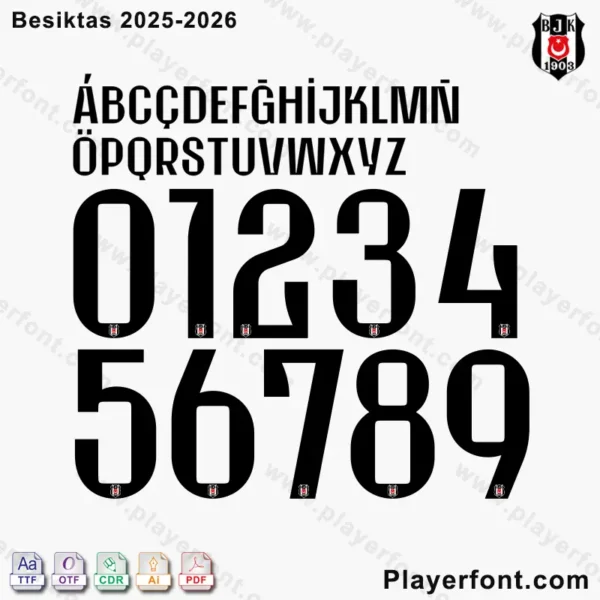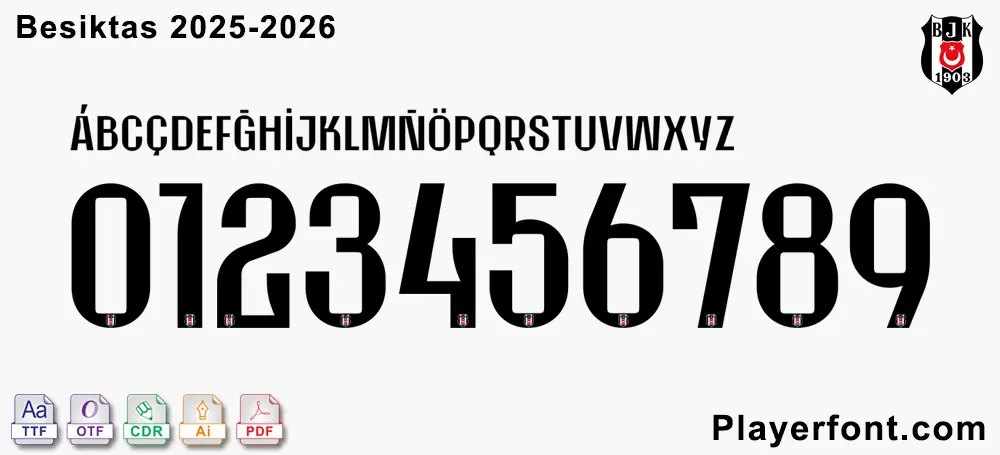
Besiktas 2025-2026 Font Download
Elevate Your Designs with the Official Besiktas 2025-2026 Font!
Besiktas 2025-2026 official font showing full alphabet, numbers, and the Besiktas logo.
A clear display of the complete Besiktas 2025-2026 Font, including all letters and numbers, with the club crest.
Are you a dedicated Besiktas fan, a graphic designer, or a creator looking for the authentic touch? Look no further! Our exclusive Besiktas 2025-2026 Font Download provides you with the exact typeface used on the team’s official jerseys for the upcoming season.
Why Choose Our Besiktas 2025-2026 Font?
• Authenticity: The official typeface used by Besiktas for the 2025-2026 season.
• High Quality: Crisp, clean lines in vector formats ensure impeccable results at any size.
Besiktas 2025-2026 font download preview with watermarks, displaying alphabet and numbers.Besiktas 2025-2026 Font Download